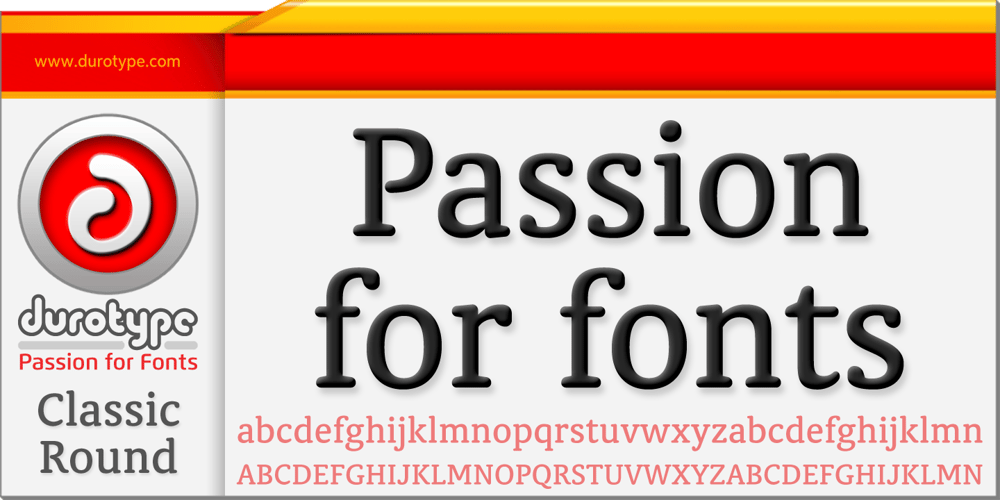
Classic Round Font Family was designed by Ben Blom and published by Durotype. Classic Round contains 14 styles and family package options. Classic Round. It’s classic. It’s round. Classic design; present-day roundness. Versatile. Soft. Warm. Peaceful. For text and display use. When using Classic Round in small text sizes, it will be a reliable and legible workhorse. When using it in big display sizes, it will show its interesting details. Classic Round has the companion typeface Classic XtraRound. For more information about Classic Round, download the PDF Specimen Manual.